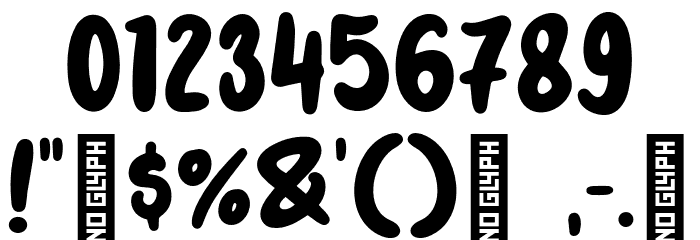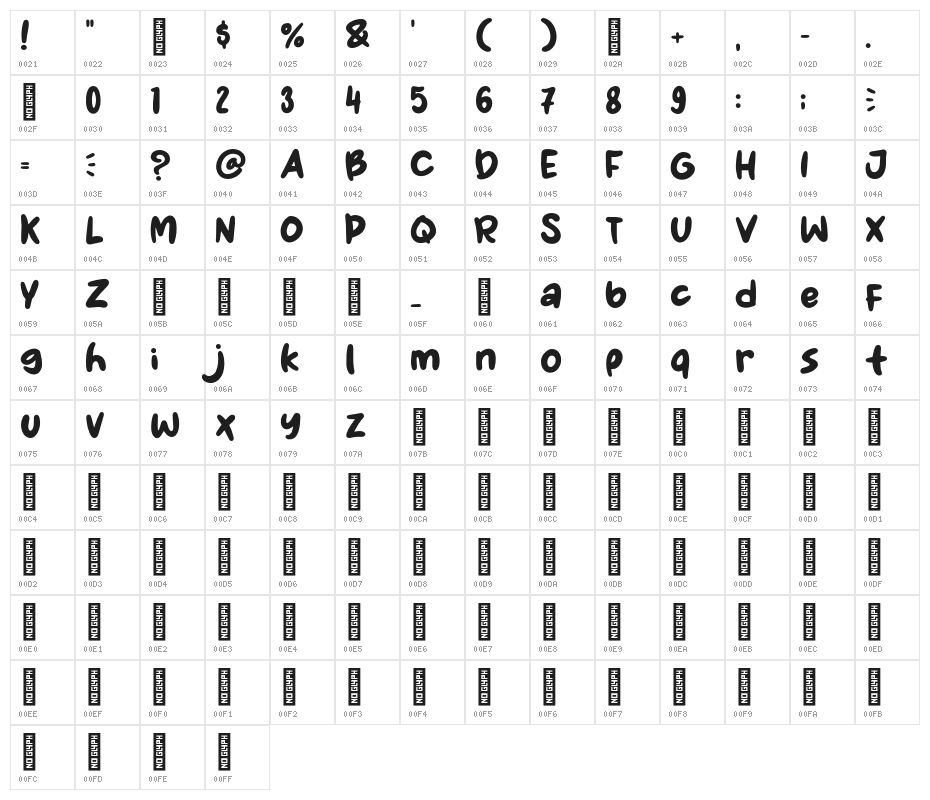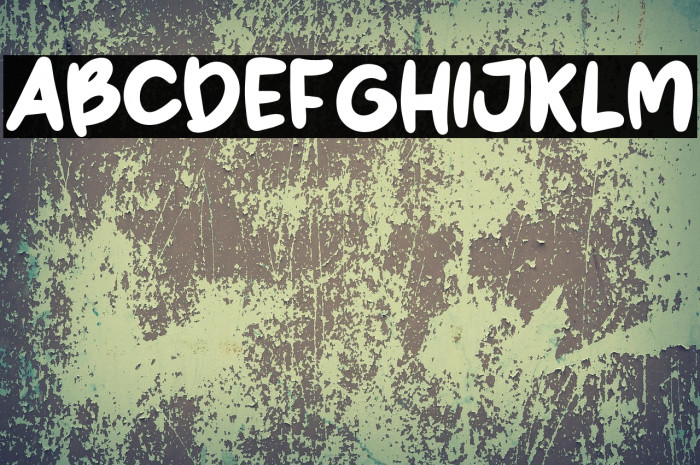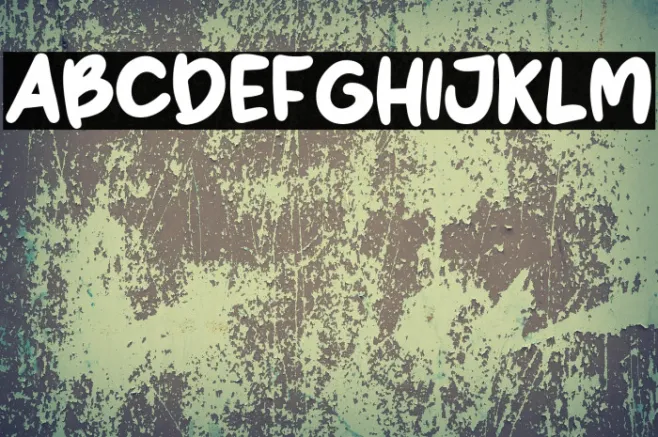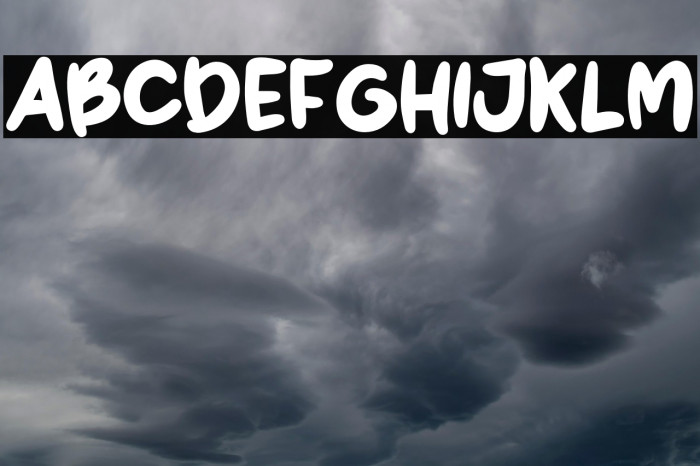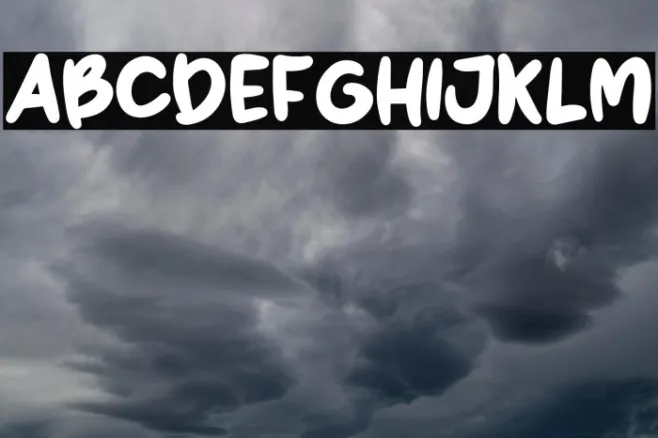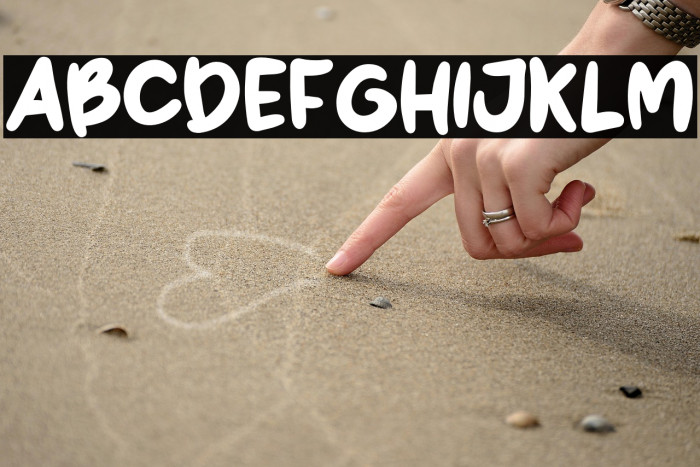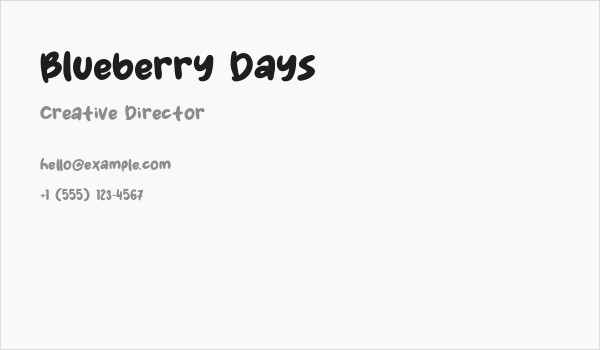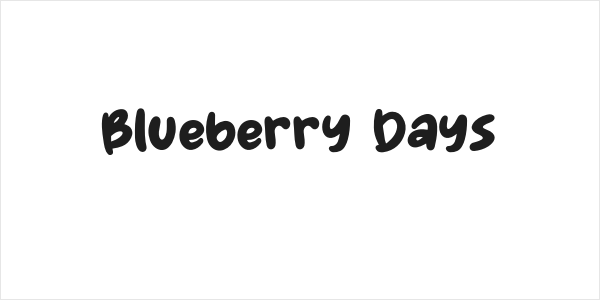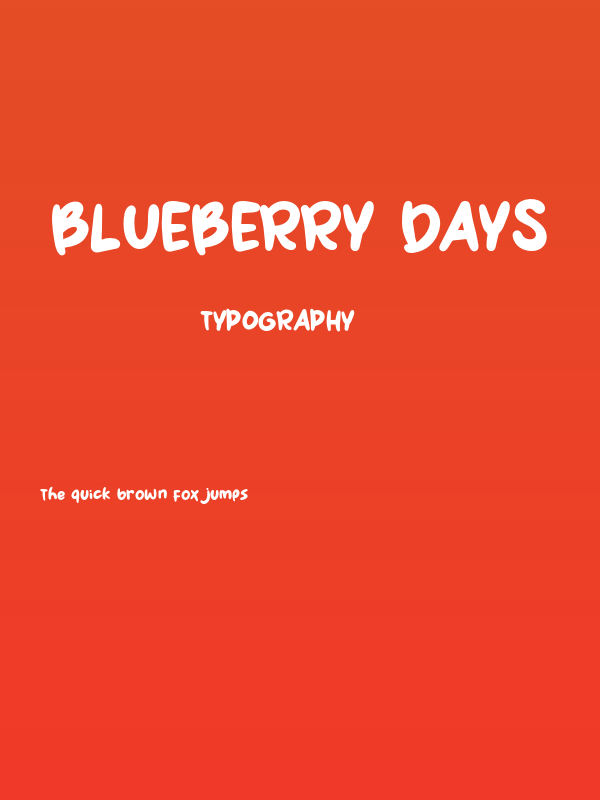
Blueberry Days Font
Blueberry Days Description
This playful and bold font features rounded, bubbly characters that exude a sense of fun and whimsy. The letters are slightly irregular, adding a hand-drawn feel that enhances its casual and approachable style. The uppercase and lowercase letters maintain consistent thickness, contributing to a cohesive look. Numbers and special characters are designed with the same playful aesthetic, making them perfect for creative projects. The font's overall appearance is friendly and inviting, ideal for designs that aim to capture attention with a cheerful vibe.
| Proposed Projects | Ideal for children's books, playful branding, party invitations, and casual social media graphics. |